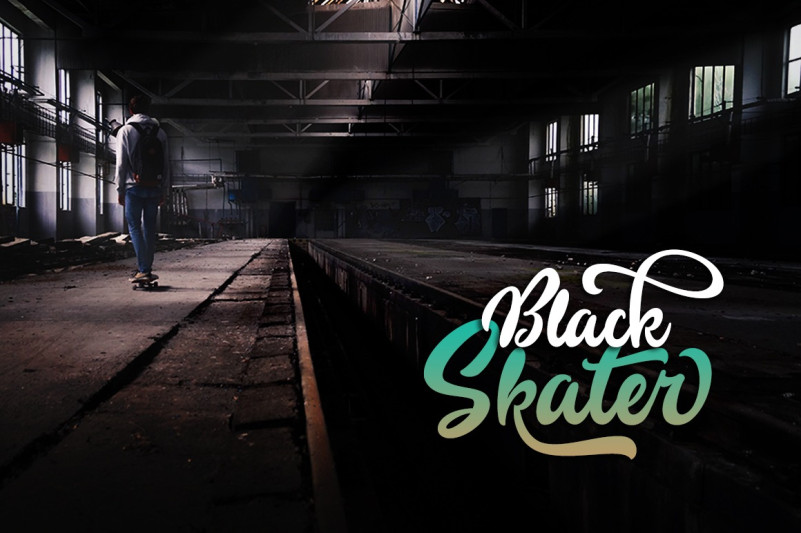
Lost Treasure Font
Lost Treasure is a stunning brush script that looks phenomenal as a display; with rounded letterforms and a beautiful baseline, this font can be multipurpose and add a ton of charm to your designs. Add this lovely freebie to your creations and take your designs to the next level!